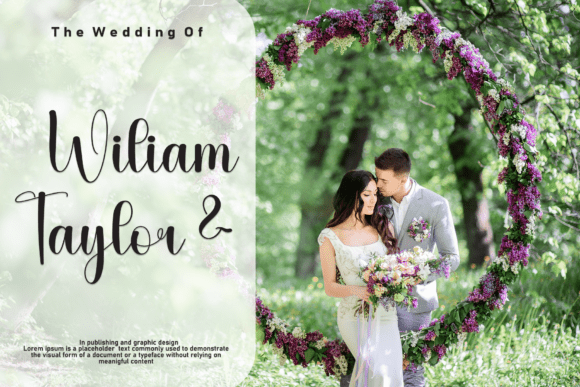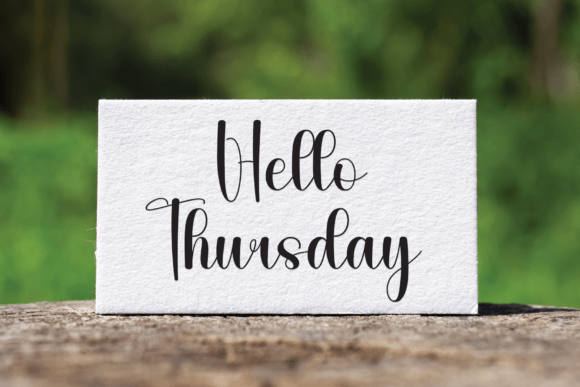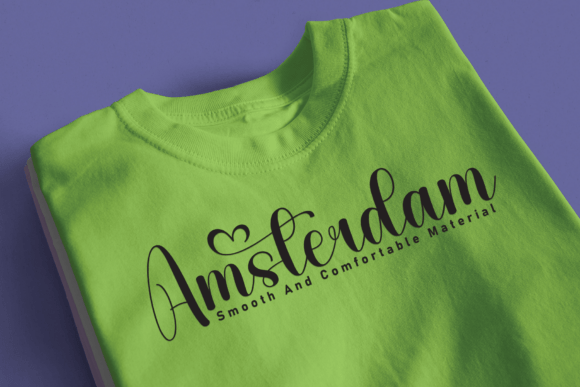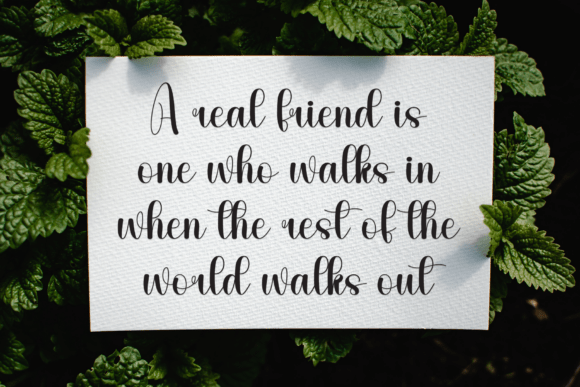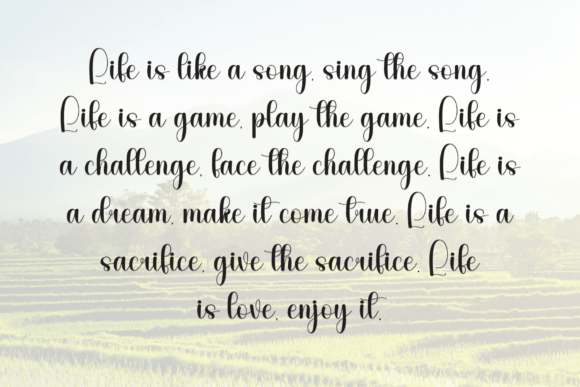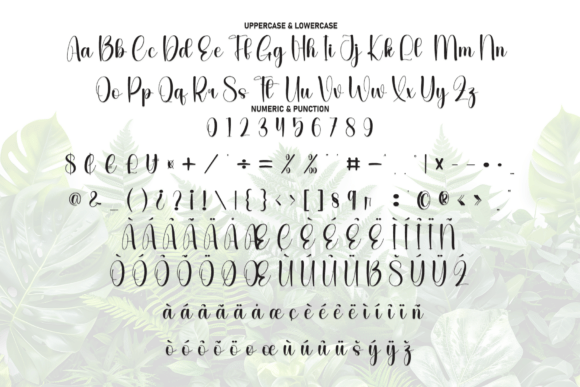
Introduction to Plants Font
Have you ever stared at a blank page, struggling to find the perfect font to match your creative vision? I know I have. It’s a frustrating moment that can derail even the most exciting design project. But what if I told you that there’s a font that can bring your ideas to life with its fresh elegance and delicate charm?
Enter the Plants Font, a stylish handwritten script font that’s been a game-changer for designers looking for a high-quality, unique design resource. Its flowing strokes and graceful curves evoke a sense of renewal, making it perfect for invitations, branding, and seasonal designs. And the best part? It’s a free download that’s available with a transparent background, giving you complete flexibility in your creative project.
Key Features of Plants Font
- High-quality design for creative projects: Plants Font is a unique and elegant font perfect for any creative project, including logos, branding, and packaging design.
- Large character set: Plants Font includes a large character set, including uppercase and lowercase letters, numbers, and special characters.
- Easy to customize: The font’s unique design makes it easy to customize and manipulate, allowing designers to add their personal touch to any project.
Honest Review: Plants Font
I recently stumbled upon the Plants Font, and I must say it’s a fantastic addition to my design arsenal. As a designer, I’m always on the lookout for high-quality fonts that can elevate my creative projects.
One of the things that works well with the Plants Font is its versatility. It’s perfect for designs that require a natural, earthy feel, from logos to branding materials. The font is also available for free download, making it an excellent resource for designers who are working on a budget.
Here are some of the key features that I love about the Plants Font:
- ✨ Unique and creative design that adds a personal touch to designs
- ✨ High-quality font that’s perfect for print and digital designs
- ✨ Transparent background, making it easy to use on any design
- ⚠️ Limited character set, which can be a challenge for longer texts
- ⚠️ May not be suitable for designs that require a more formal tone
Overall, I’m really impressed with the Plants Font. It’s a fantastic design resource that can add a creative touch to any project. If you’re looking for a unique and high-quality font, I highly recommend giving it a try.
Introduction to Plants Font
Plants Font is a high-quality design resource perfect for your creative project. It offers a unique and elegant style, making it ideal for various applications. The font is available for free download with a transparent background, allowing for seamless integration into your design.
Tips for Getting the Most Out of Plants Font
Use Plants Font for headings, titles, or any text that requires a touch of elegance. Experiment with different font sizes and styles to create a visually appealing design.
Common Use Cases for Plants Font
Use Plants Font for wedding invitations, event promotions, or any design project that requires a high-end look. The font’s unique style makes it perfect for creative projects that require a touch of sophistication.